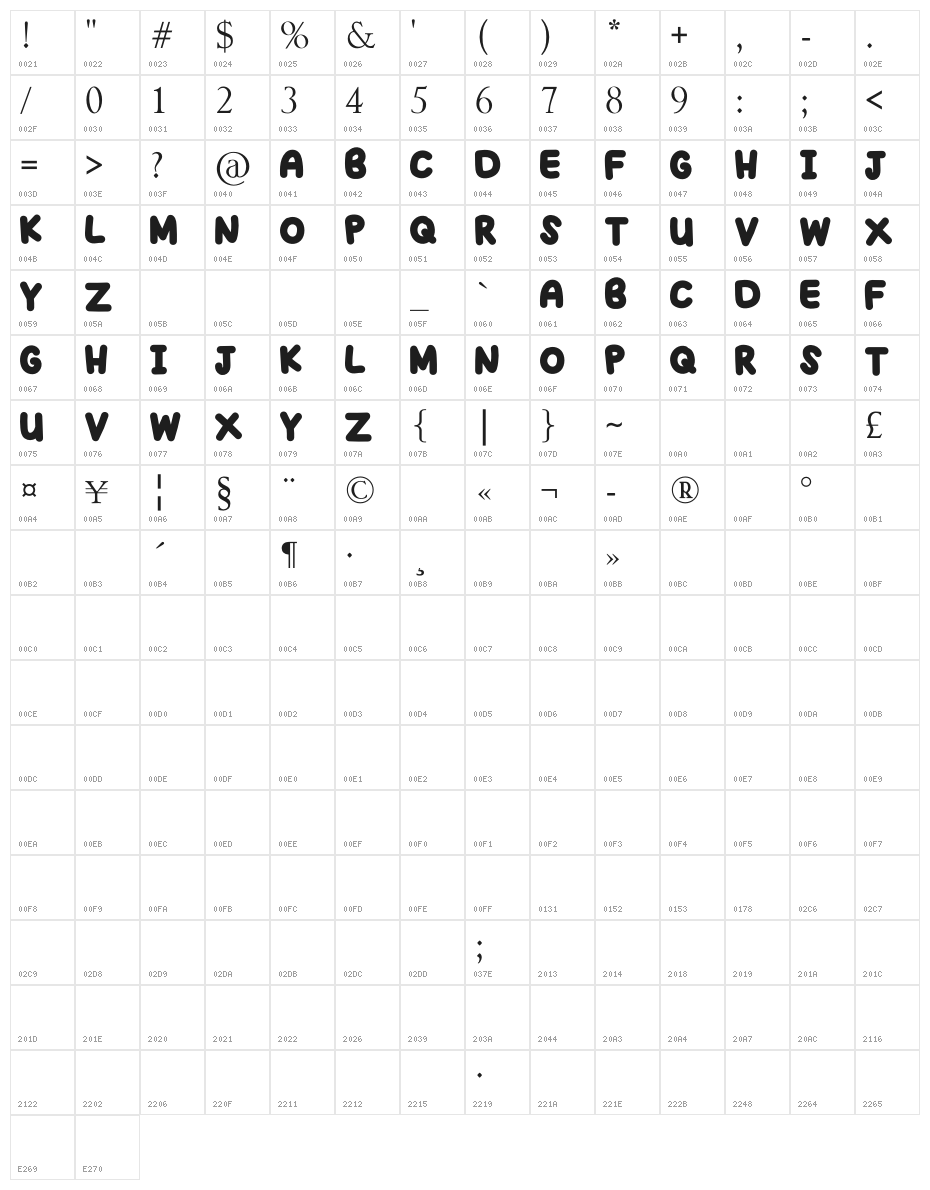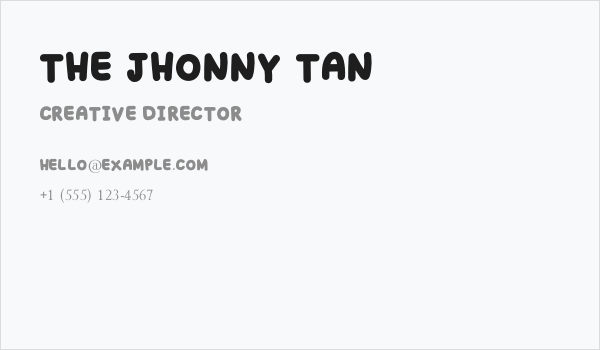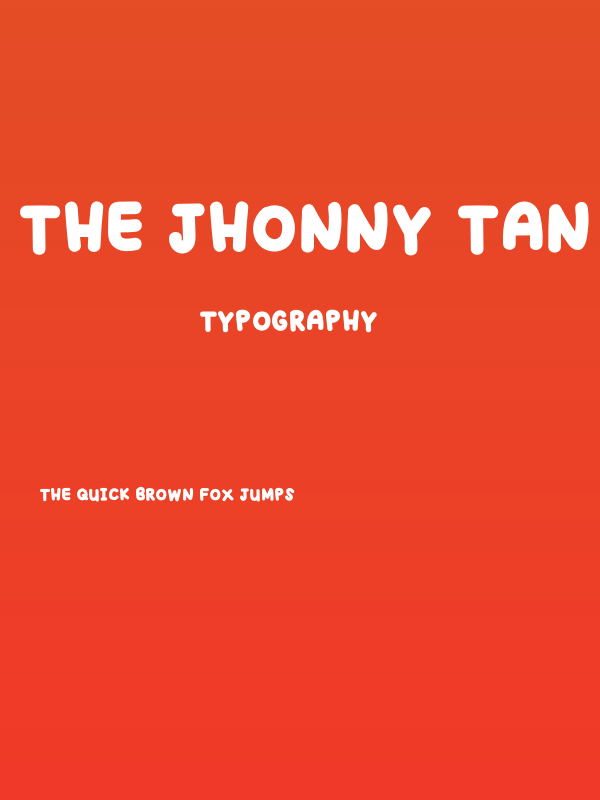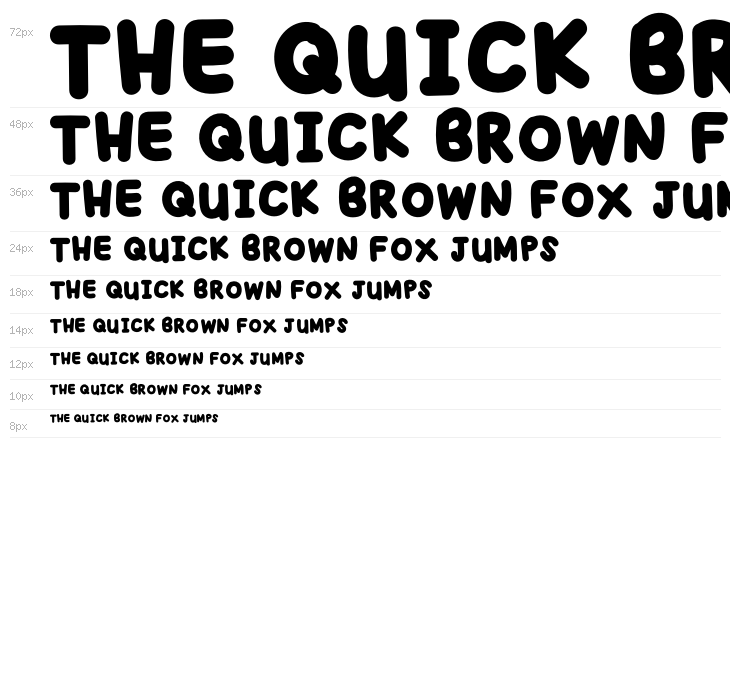
THE JHONNY TAN Font
THE JHONNY TAN Description
This font features a playful and rounded style, characterized by its bold and smooth curves. The uppercase letters are consistent in height, with a slightly whimsical touch that adds a sense of fun and informality. The lowercase letters maintain the same playful aesthetic, offering a cohesive look throughout. The numerals are clear and easy to read, with a slight variation in stroke thickness that adds to the overall charm. Special characters are well-integrated, maintaining the font's unique style. This font is ideal for projects that require a friendly and approachable feel.
| Proposed Projects | Ideal for children's books, playful branding, casual invitations, and creative posters. |